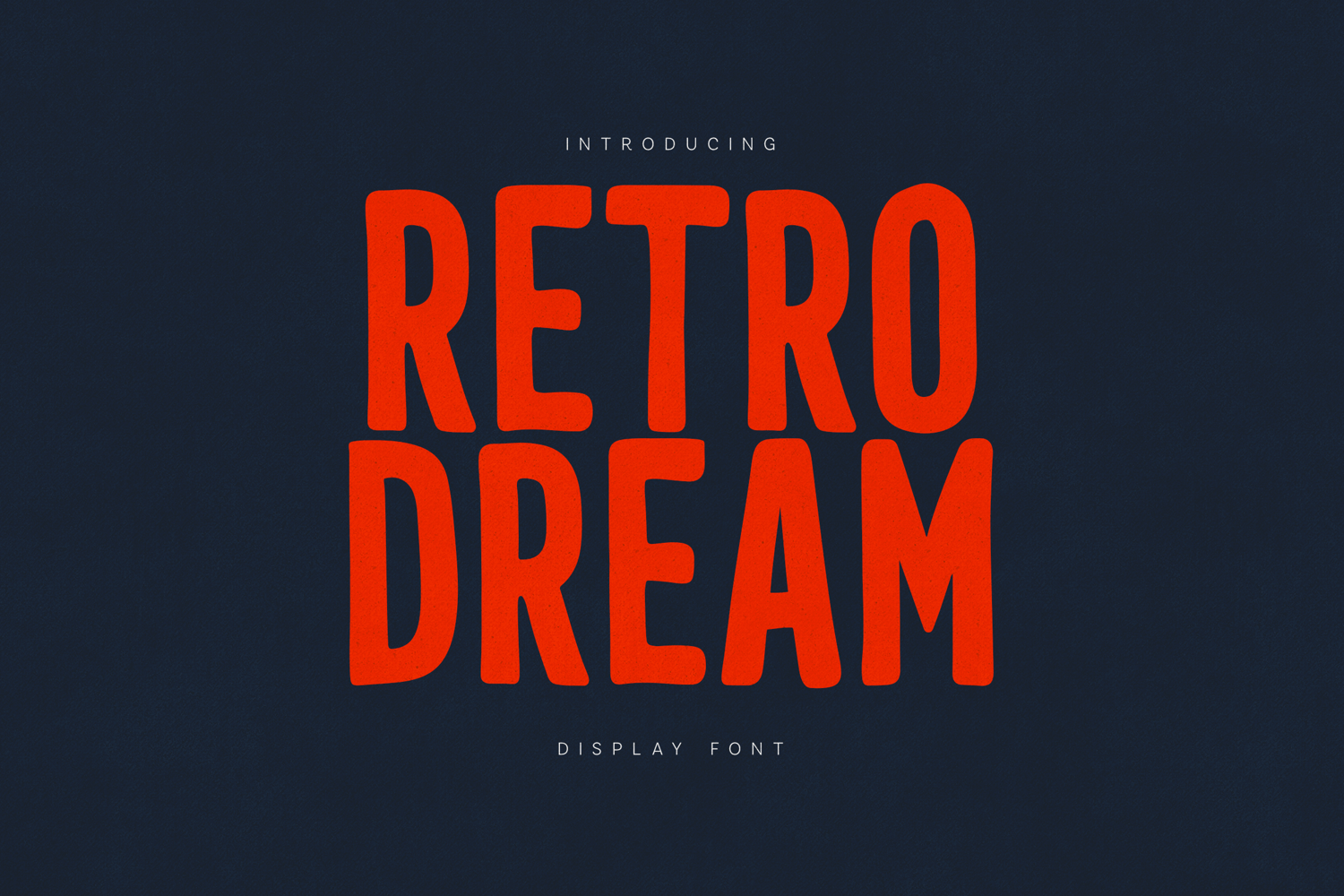
Retro Dream Bold Vintage Display Font
Retro Dream is a bold and expressive display font inspired by vintage posters, classic signage, and nostalgic typography. With its slightly irregular shapes and strong condensed structure, this typeface delivers powerful visual impact while maintaining a handcrafted, authentic feel.
Designed for attention-grabbing headlines, Retro Dream works perfectly for posters, branding, packaging, album covers, apparel, editorial layouts, and bold social media graphics. Its subtle organic imperfections give it warmth and personality, making it ideal for projects that need energy and character.
The font includes full uppercase and lowercase characters, numerals, punctuation, extended multilingual support, and special symbols — giving you flexibility for global design projects.
Perfect for: vintage branding, bold posters, retro logos, streetwear design, music artwork, packaging, and strong typographic compositions.